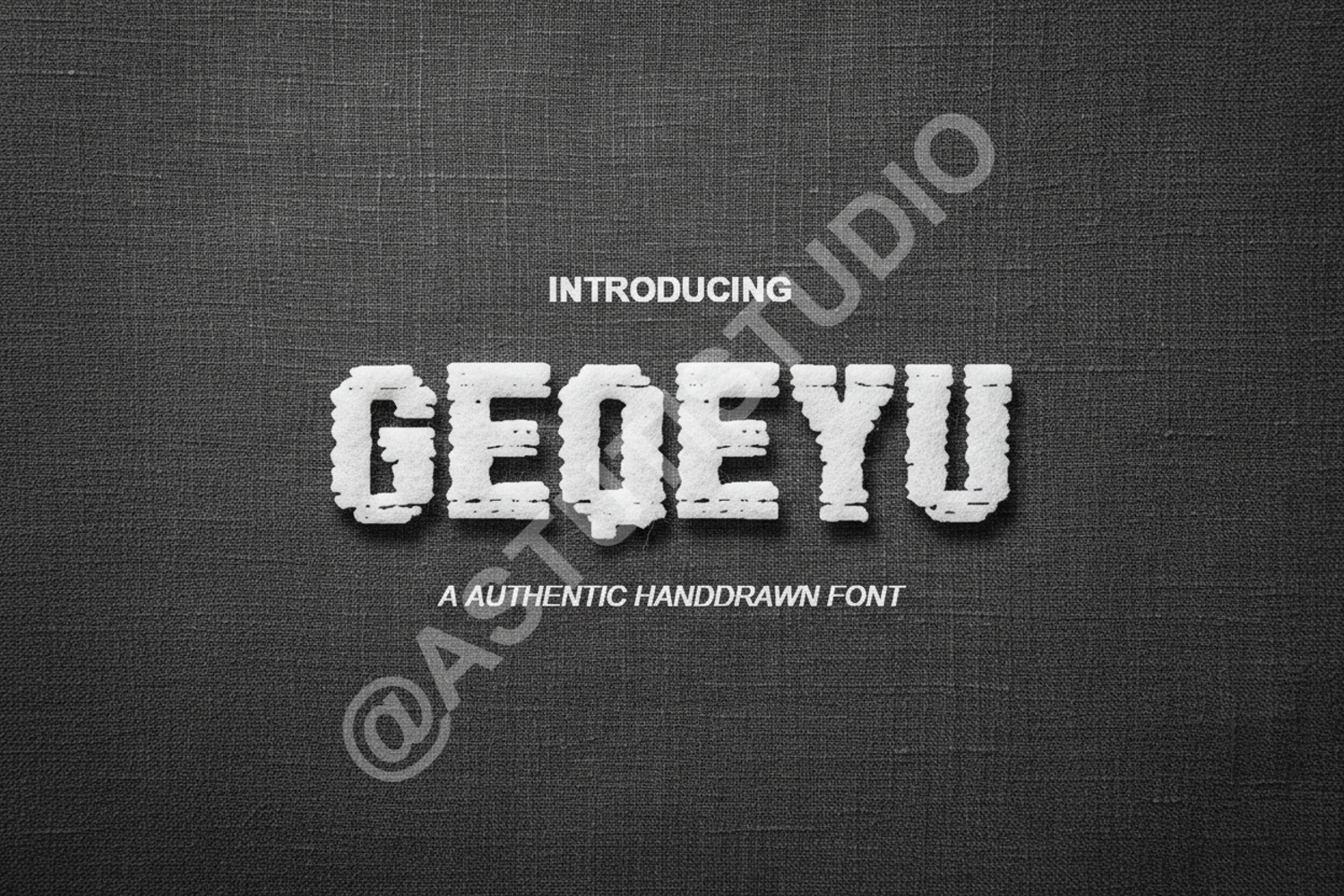
Geqeyu - Modern Minimalist Sans Serif Typeface
Geqeyu
Experience the perfect blend of sophistication and modern aesthetics with Geqeyu. This premium sans serif font is meticulously crafted to bring a clean, minimalist touch to your creative projects. Whether you are aiming for a high-end luxury feel or a sharp professional look, Geqeyu offers the versatility needed to make your designs stand out. Its balanced proportions and crisp lines ensure readability and style across various mediums.
- Full set of uppercase and lowercase letters
- Numbers, punctuation, and multilingual support
- Branding and Identity: Perfect for creating memorable logos, business cards, and brand guidelines.
- Editorial Design: Ideal for magazine layouts, headers, and clean body text.
- Digital Marketing: Enhance your social media graphics, web banners, and online advertisements.
- Wedding Stationery: Add a touch of modern elegance to invitations, save-the-dates, and menus.
- Product Packaging: Elevate your retail presence with a sleek, contemporary typography choice.